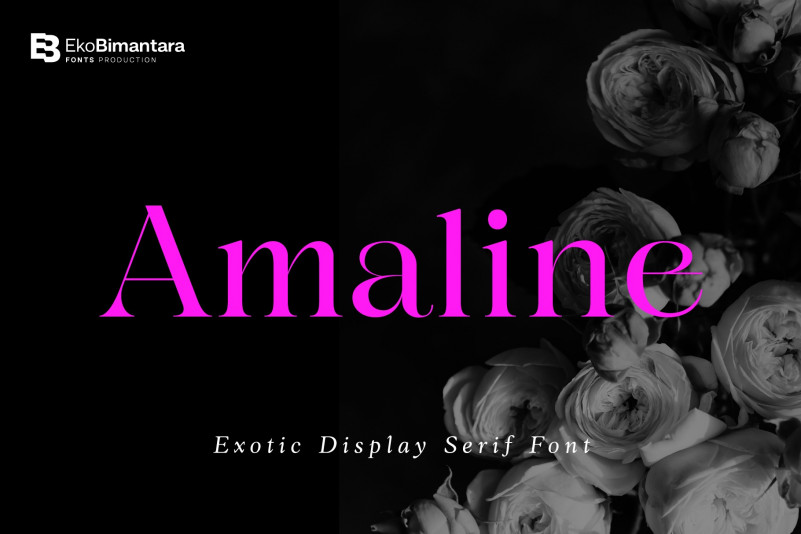
Amaline Serif Font
This Font designed by ekobimantara is a serif while elegance still maintained. It will boost your design stand out!
Amaline is the perfect typeface for any kind of your project, such as advertisements, branding, graphic design, quotes, wedding design, logo for online or offline business, photography, and others. Make your business more elegant beautiful!